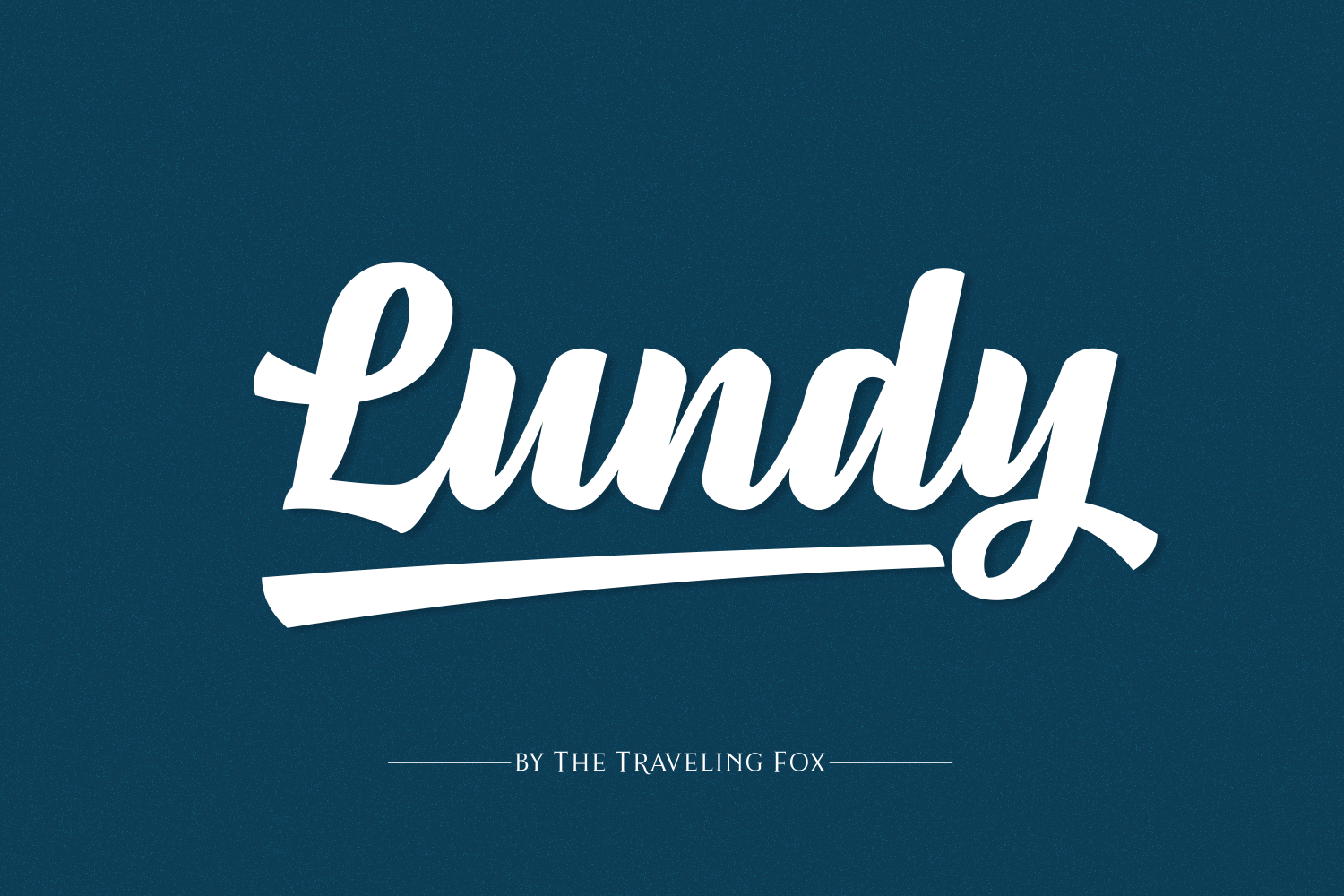
Lundy Skate Type Font
Lundy is bold, versatile font. It’s expressive and great for branding, crafting and much more. It is easy to read and works well for digital designs, print & cut.
To add the decorative line underneath, simply add an underscore, asterisks and the number of the swash (for example: T_*1raveling) or grab it from the PUA encoded section of the font.